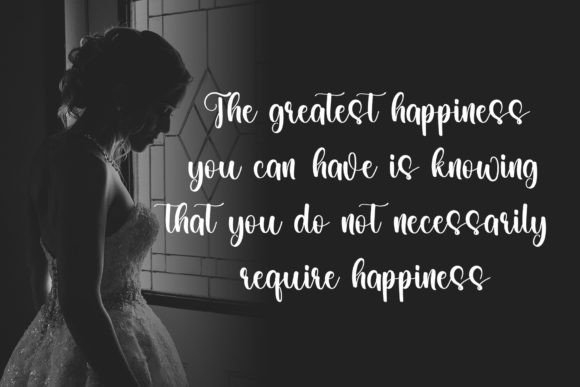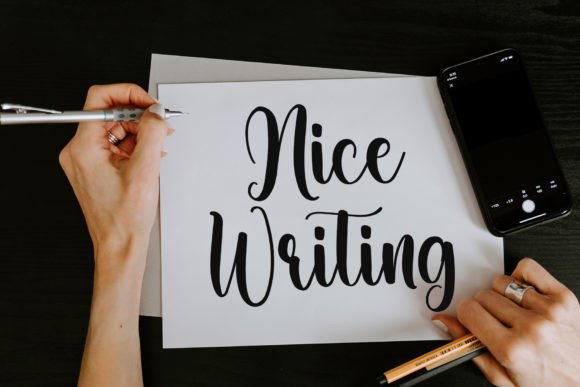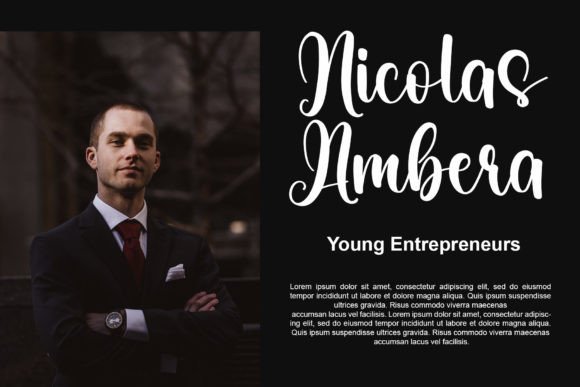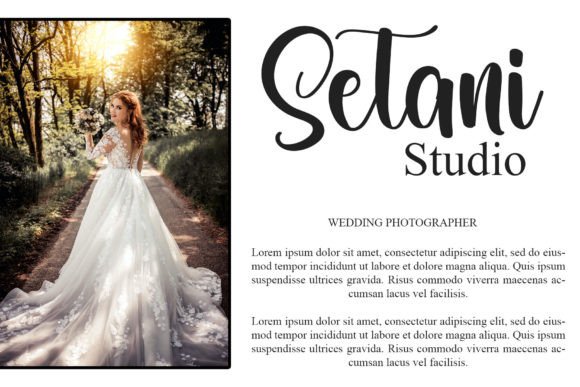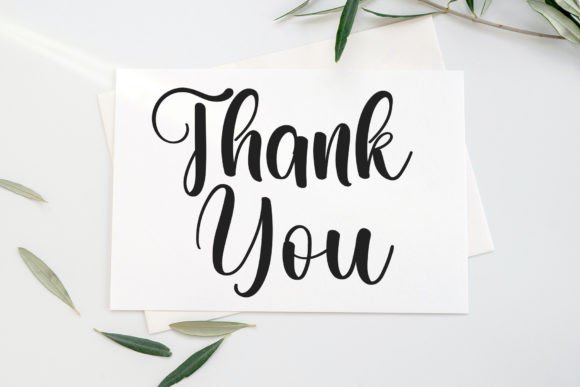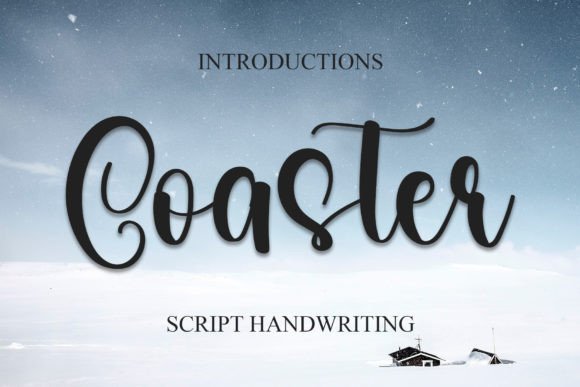
Introducing Coaster Font: Elevate Your Designs with Elegance
Are you a designer, crafty DIY enthusiast, or social media influencer looking for a font that can add a touch of sophistication to your creative projects? Look no further than Coaster Font, a beautiful handwritten script that can transform any design into a stunning work of art. In this article, we’ll dive into the world of Coaster Font, exploring its features, benefits, and uses, as well as provide tips on how to make the most of this magical font.
What is Coaster Font?
Coaster Font is a carefully crafted handwritten script designed to bring a touch of elegance to your designs. With its flowing lines and cursive strokes, this font is perfect for creating beautiful calligraphy scripts, social media posts, and DIY projects. Whether you’re looking to add a personal touch to your Instagram feed or create stunning handmade cards, Coaster Font is the perfect choice.
Features of Coaster Font
• Handwritten script: Coaster Font is a genuine handwritten script, giving it a personal and unique touch that’s perfect for designs that require a human touch.
• Elegant and sophisticated: With its flowing lines and cursive strokes, Coaster Font exudes elegance and sophistication, making it perfect for designs that require a high-end feel.
• Versatile: Coaster Font can be used for a wide range of design projects, from social media posts and DIY projects to calligraphy scripts and handmade cards.
Benefits of Using Coaster Font
So why choose Coaster Font for your design projects? Here are just a few benefits of using this magical font:
• Adds a personal touch: Coaster Font’s handwritten script gives your designs a personal touch that’s hard to replicate with generic fonts.
• Elevates your designs: With its elegant and sophisticated feel, Coaster Font can elevate your designs and give them a high-end look.
• Increases creativity: Coaster Font’s unique and flowing script can inspire creativity and help you think outside the box when it comes to your design projects.
• Perfect for DIY projects: Coaster Font is perfect for DIY projects, such as handmade cards, gift tags, and other crafty endeavors.
Using Coaster Font for Instagram and Social Media
If you’re a social media influencer or designer looking to elevate your Instagram feed, Coaster Font is a great choice. Here are a few tips for using Coaster Font on social media:
• Use it for quotes and captions: Coaster Font is perfect for creating beautiful quotes and captions for your Instagram posts.
• Add a personal touch to your feed: With its handwritten script, Coaster Font can add a personal touch to your Instagram feed and make it stand out from the crowd.
• Experiment with different colors and fonts: Coaster Font can be used in a variety of colors and paired with other fonts to create a unique and eye-catching look.
Tips for Using Coaster Font in DIY Projects
If you’re a crafter or DIY enthusiast looking to use Coaster Font in your projects, here are a few tips to get you started:
• Use it for handmade cards and gift tags: Coaster Font is perfect for creating beautiful handmade cards and gift tags.
• Experiment with different materials: Coaster Font can be used on a variety of materials, including paper, fabric, and wood.
• Add embellishments: Consider adding embellishments, such as glitter or stickers, to give your DIY projects an extra touch of elegance.
Font Name Coaster Font
Author YanStudio
In conclusion, Coaster Font is a magical handwritten script that can add a touch of elegance to any design project. With its flowing lines and cursive strokes, this font is perfect for designers, crafters, and social media influencers looking to create beautiful and sophisticated designs. Whether you’re looking to elevate your Instagram feed or create stunning DIY projects, Coaster Font is the perfect choice. So why wait? Download Coaster Font today and start creating your own stunning designs!